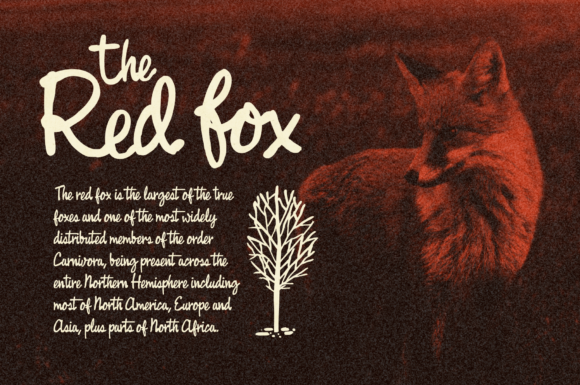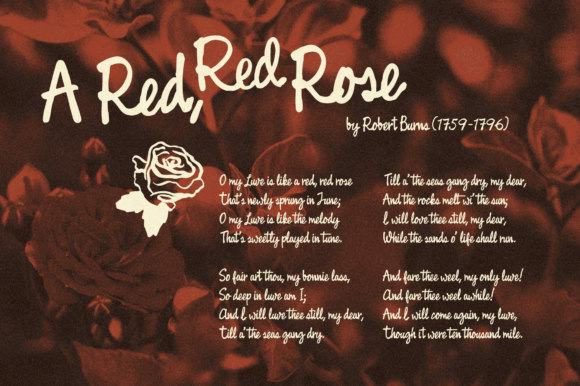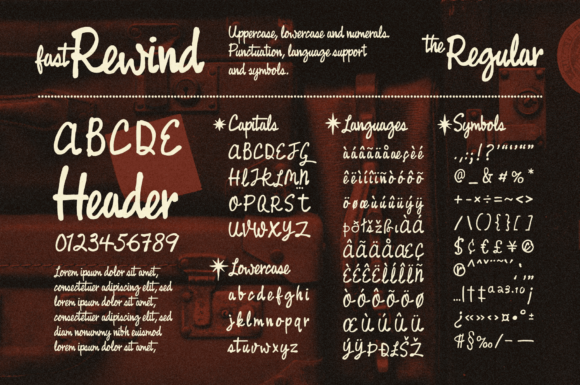
About Fast Rewind Font
Fast Rewind is a relaxed, adaptable and neat handwritten font. Trendy and stylish, this font will elevate each of your creations. Fast Rewind is PUA encoded which means you can access all of the glyphs and swashes with ease!Â